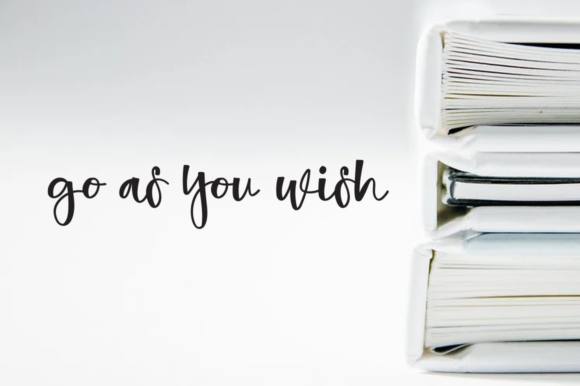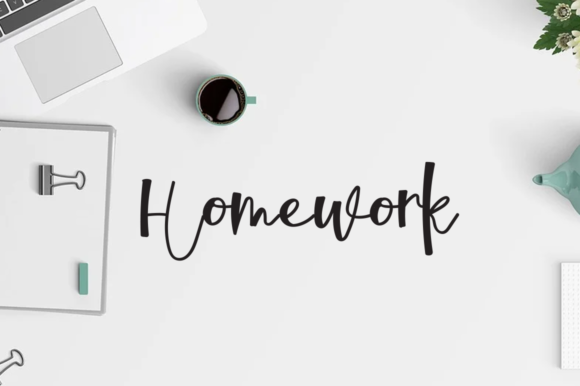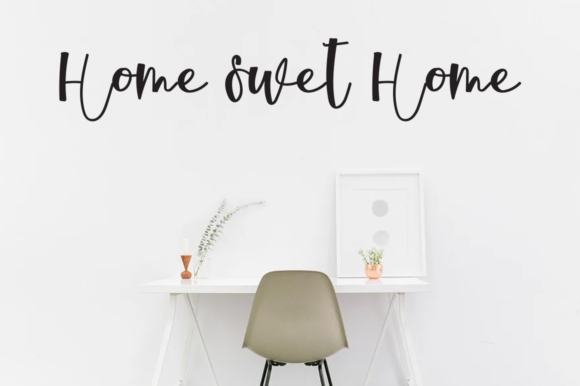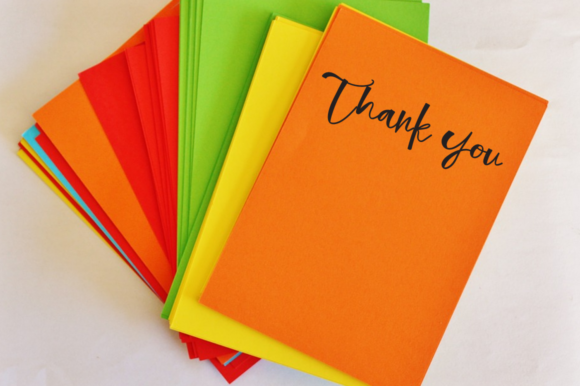
Luffio Font
About Luffio Font
Luffio is a sweet and cute handwritten font. It is perfect for quotes, shirt designs, websites, branding, kids designs, blogs, logos, invitations and more!